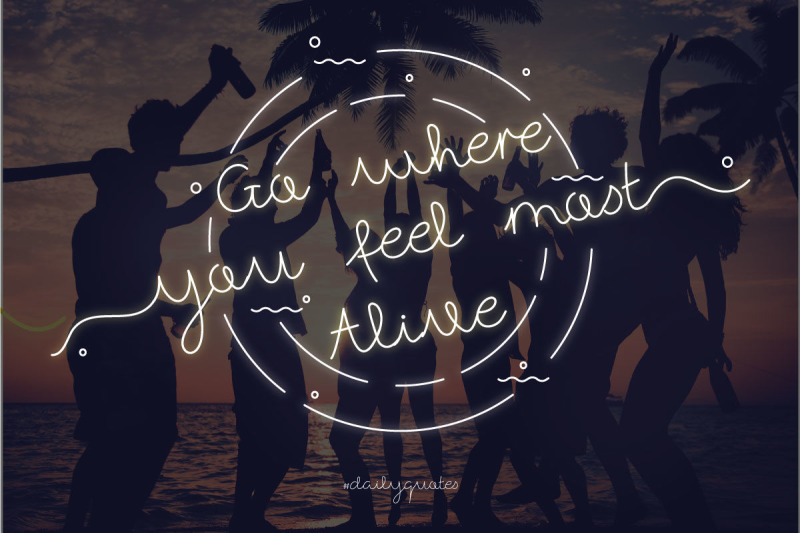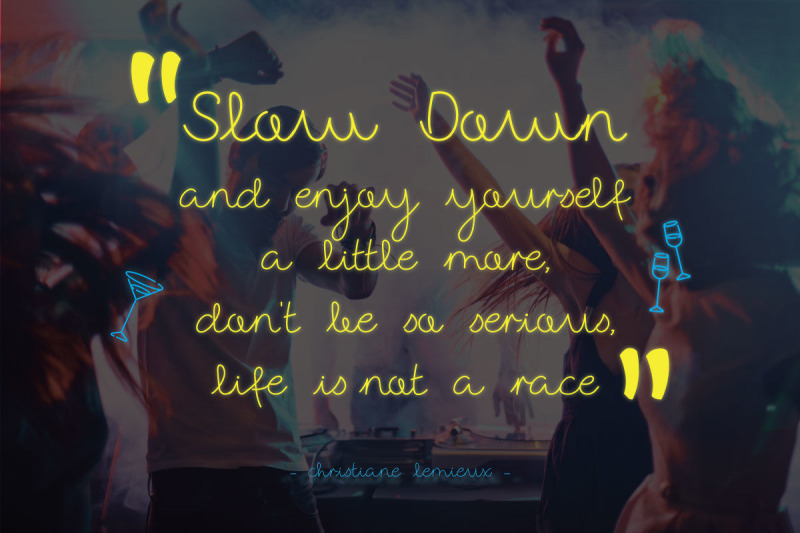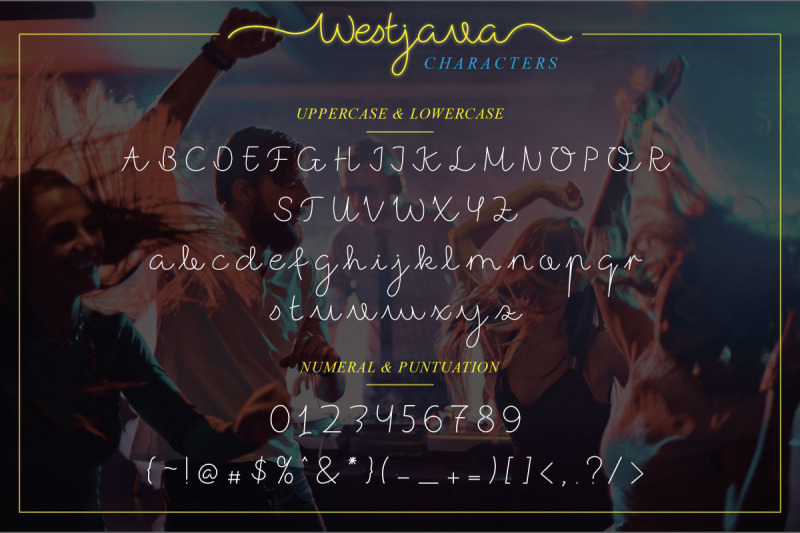
Freebie of the WEEK - FREE Simple Font Bundle by Fontdation Studio Introducing Westjava! An artistic expressional handwritten font with strong characters. Westjava is a original handwritten typeface, inspired from several written everyday sources. Perfect for your next design, such as printed quotes, handwritten quotes, invitations, cards, product packaging, merchandise, social media & greeting cards, headline magazine, headers, and anything else you can imagine.
FREE Westjava Script Font